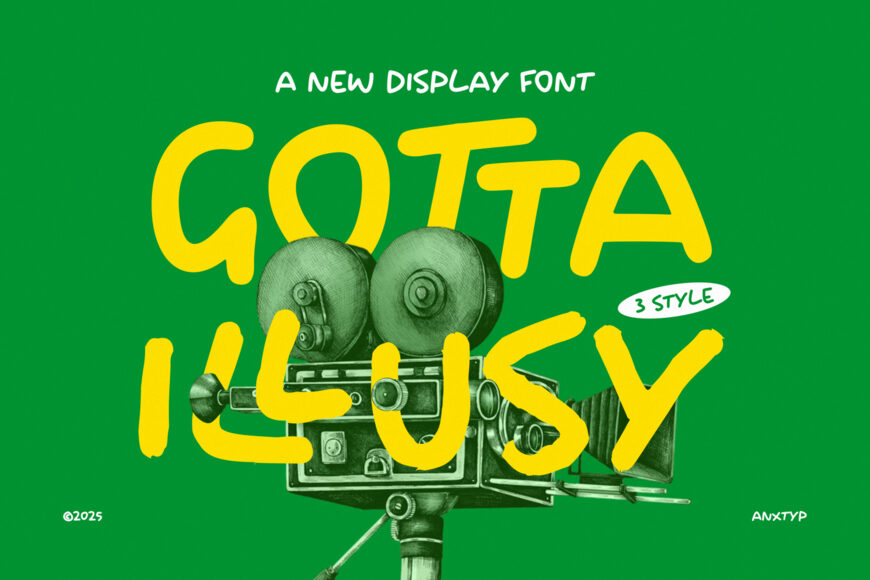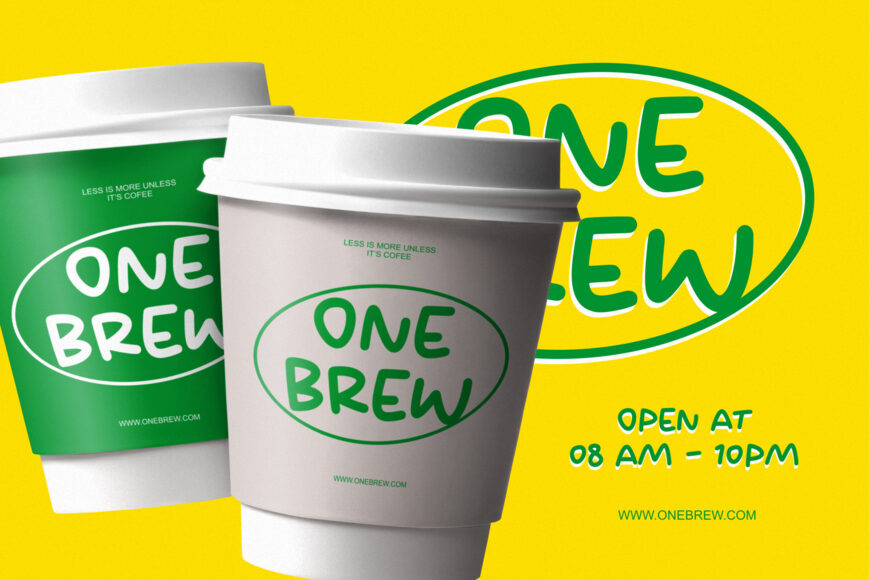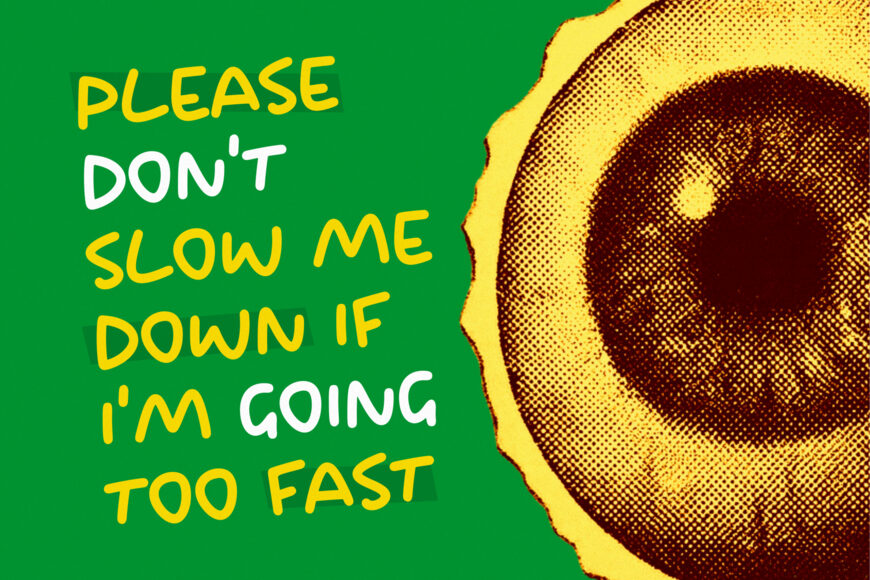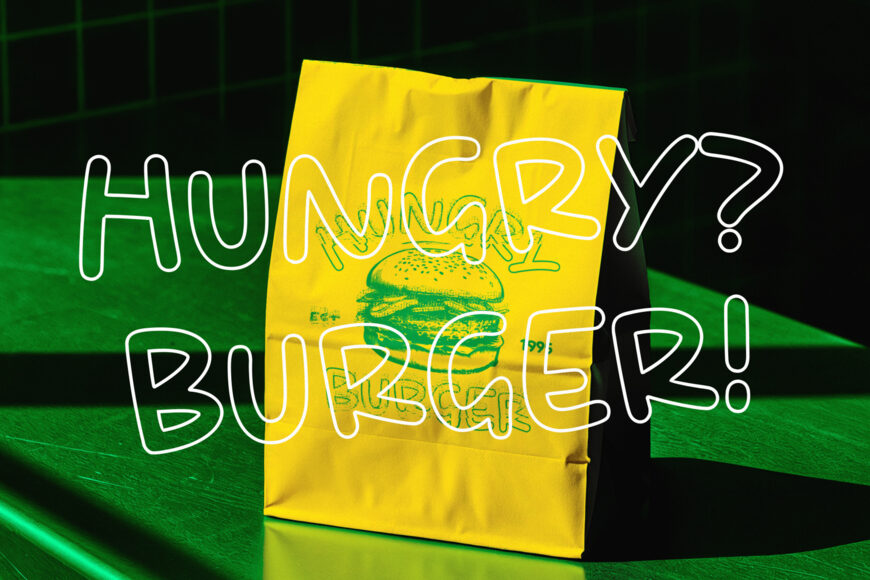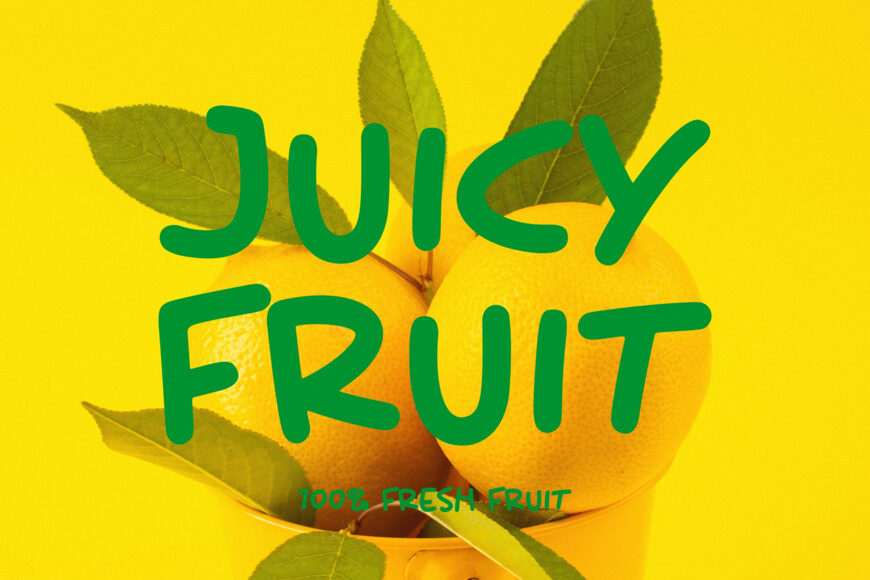
Gotta Illusy is a font family presenting three stylish choices: Regular, Hollow, and Trace. Each style brings a unique flavor to its application, be it branding projects, design thematics, sticker creation, or machine cutting ventures, Website etc.
Gotta Illusy, a culmination of style and substance, is your go-to choice for versatile, fresh, and distinct design endeavors. Unleash a new dimension in your artistic expression with Gotta Illusy Font.